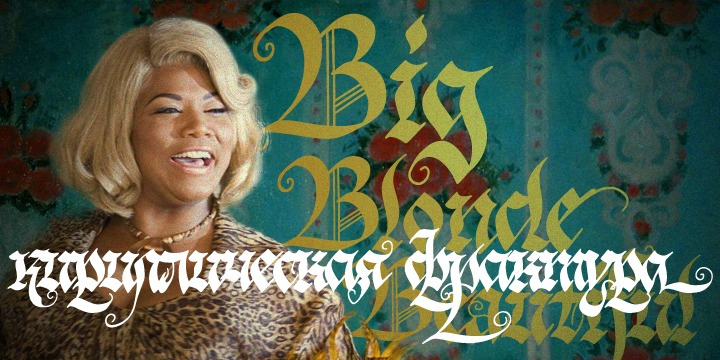
Blonde Fraktur Font
This distinctive typeface is perfect for craft brewery branding, German restaurant signage, traditional beer hall materials, medieval-themed events, historical reenactment graphics, artisan bakery logos, heritage brand packaging, and authentic cultural celebration designs. Blonde Fraktur Font delivers Germanic authenticity in applications where traditional European heritage and historical craftsmanship are essential for creating memorable brand experiences that celebrate cultural traditions and time-honored brewing practices.
What makes Blonde Fraktur Font so exciting is its masterful interpretation of traditional German blackletter typography with contemporary accessibility. The font features characteristic angular letterforms with distinctive flourishes that capture the essence of medieval manuscript traditions and Germanic cultural heritage. Each character has been carefully crafted to maintain authentic historical character while ensuring modern readability across various traditional applications. The typeface's cultural personality creates immediate associations with European craftsmanship and brewing traditions, making it perfect for businesses that want to communicate authentic heritage and traditional quality through their visual identity.
The Blonde Fraktur Font includes traditional style variations: Regular, Bold, Light, and Decorative versions. This heritage collection allows designers to create authentic layouts and establish traditional typographic treatments that capture the essence of Germanic culture and historical craftsmanship. Each style maintains the font's inherent authenticity while providing different emphasis levels for various cultural applications and traditional design themes.
This authentic Germanic typeface represents the perfect choice for designers who understand the power of cultural typography in creating meaningful connections with audiences celebrating European heritage and traditional brewing culture.